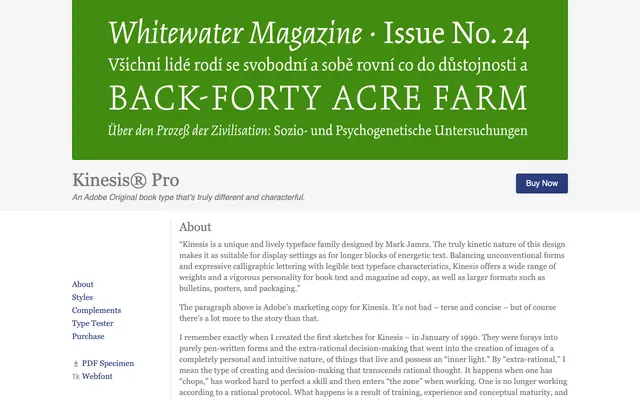
Kinesis® Pro
A pen-written humanist serif by Mark Jamra, begun in 1990, that balances calligraphic expressiveness with the legibility demands of continuous text.
Designed by Mark Jamra and originally released as an Adobe Original, Kinesis Pro draws on the romans of Jenson and Garamond as well as the work of Oldřich Menhart, channelling an intuitive, calligraphic energy into a typeface suited to both book text and display settings. Its unconventional, expressive letterforms are tempered by solid text legibility, making it usable across magazine copy, posters and packaging without sacrificing personality. The result is a family with a distinctly lively character that sets it apart from more neutral text faces.
Kinesis draws from the pen-written calligraphic tradition, referencing Jenson and Garamond romans, with expressive unconventional forms balanced against legible text characteristics — placing it firmly in the humanist serif category.